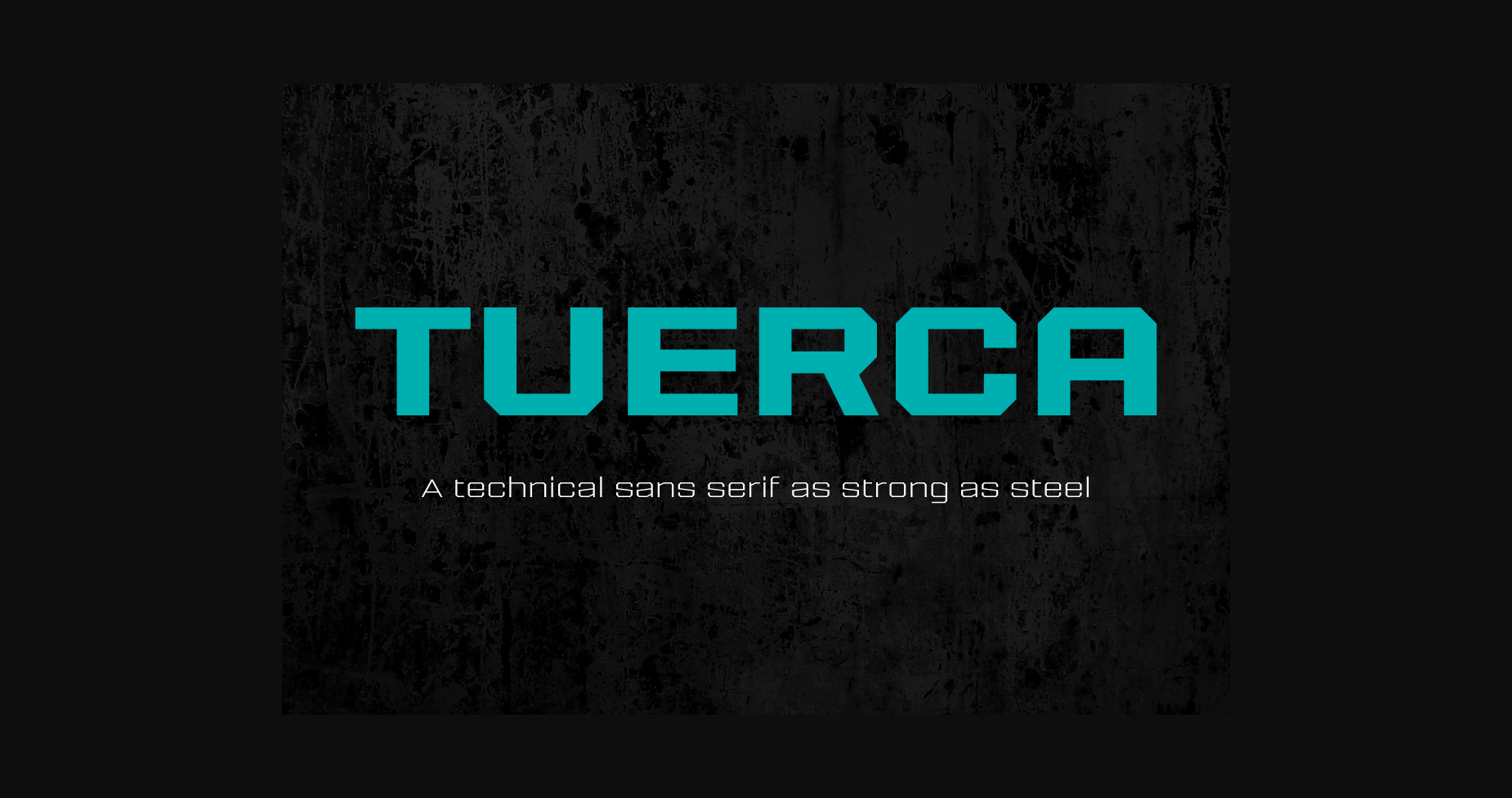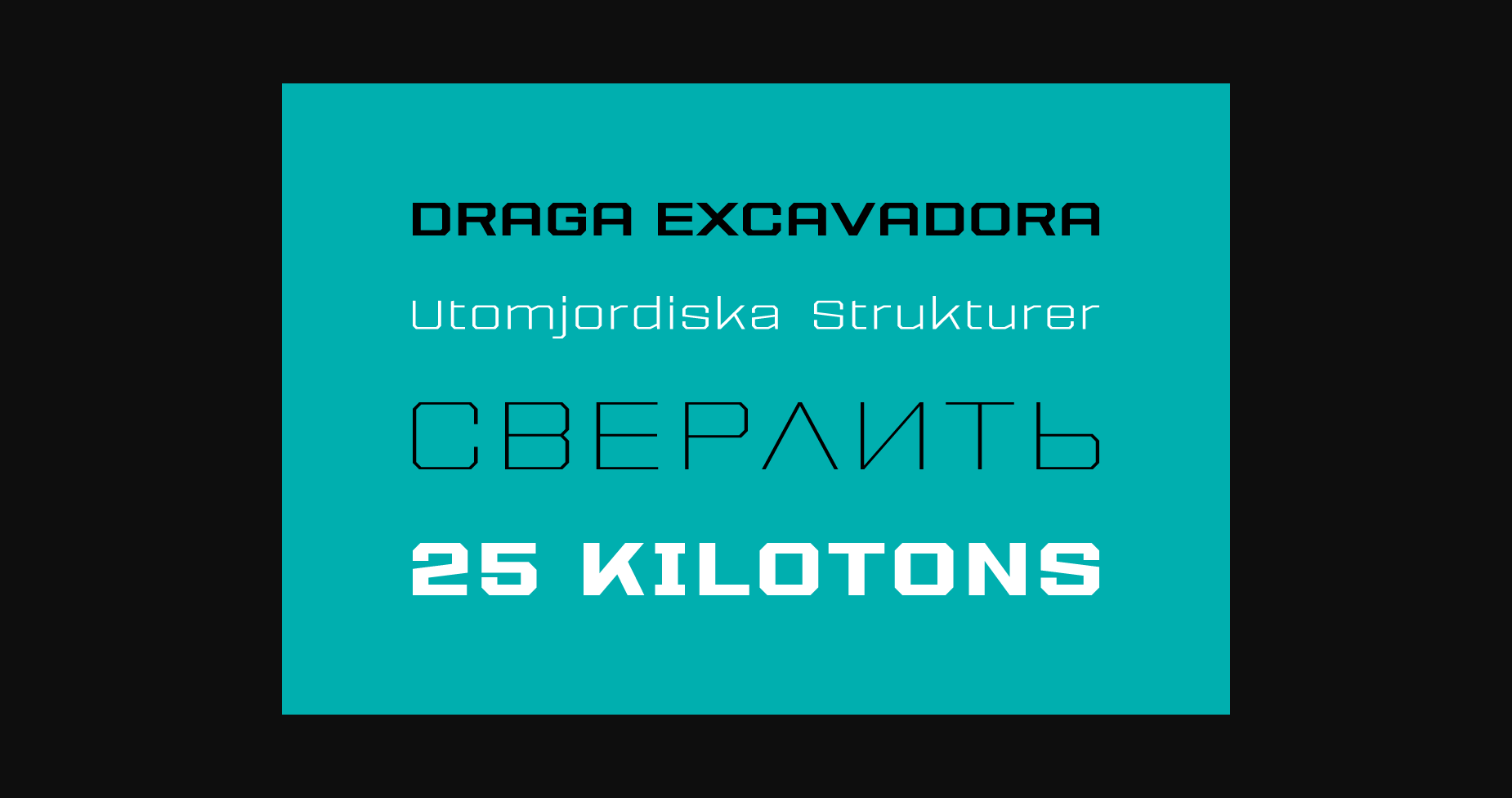
About Tuerca Family Font
Tuerca font family has been designed for Graviton Font Foundry by Pablo Balcells in 2021. It is a slightly extended sans serif typeface with a strong technical appearence. Its squared, angular shapes provide a futuristic and robust aesthetics. It has been conceived to be most suitable for logos, headlines and display design pieces as well as short length text blocks.